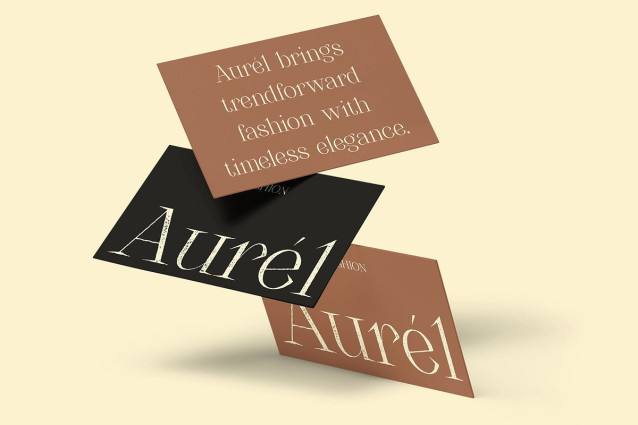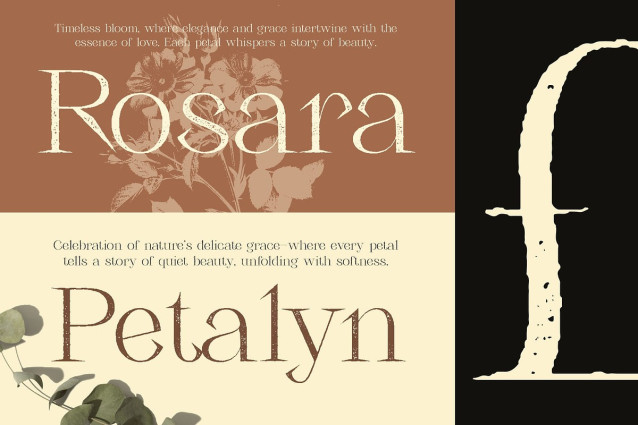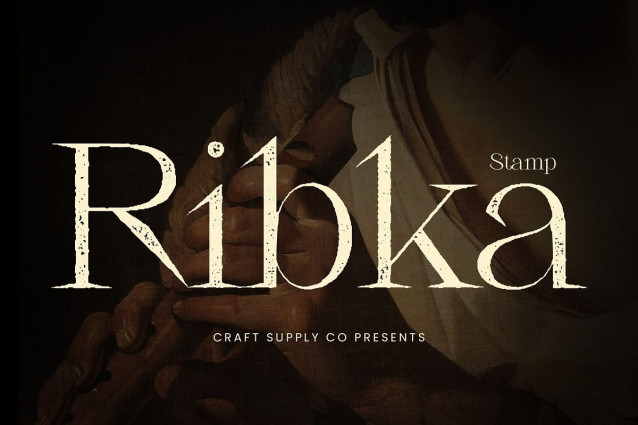
Ribka Stamp Font
Ribka Stamp Font is a modern serif font that combines sleek, minimalist design with a subtle yet striking stamp effect. The clean lines and refined letterforms create an elegant aesthetic, while the unique stamp texture adds a bold, artistic character to each letter.
Sleek Design for a Sophisticated Feel With its minimalist approach, Ribka Stamp delivers a refined and aesthetic vibe, perfect for luxury branding and high-end design projects. The font’s precise proportions ensure that it maintains a professional and sophisticated look, ideal for editorial layouts and visual identities aiming to communicate elegance with a hint of strength.
Bold Impression with a Soft Edge The soft, stamped effect enhances Ribka Stamp’s boldness without overwhelming its clean structure. This balanced contrast gives the font a unique presence—perfect for designs that seek to leave a lasting impression while maintaining an air of sophistication and grace.
Ideal for Luxury Branding and Editorials Ribka Stamp excels in environments where elegance and strength need to coexist, such as premium branding, artistic editorial designs, and modern visual identities. Its ability to evoke both refinement and creativity makes it perfect for brands that desire a strong yet smooth and inviting presence.